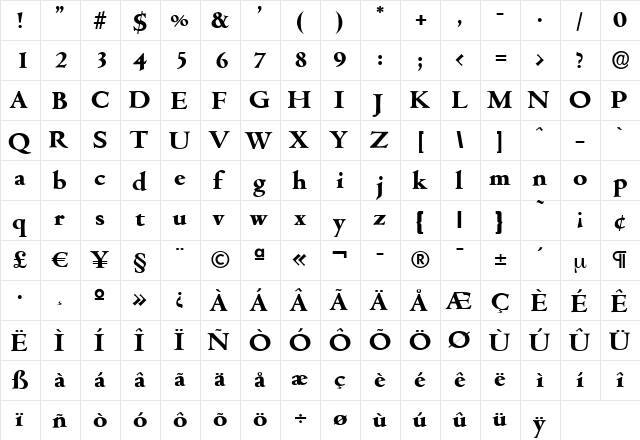
JohnBecker-ExtraBold Regular
Design Context for JohnBecker-ExtraBold Typeface
JohnBecker-ExtraBold is a composed and adaptable typeface that performs quietly and consistently across a wide range of design contexts. Its bold stroke weight gives it real presence on the page.